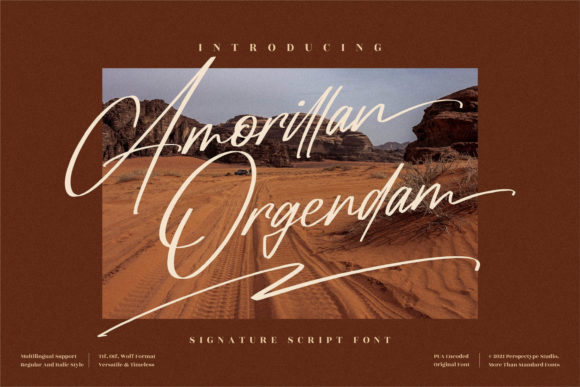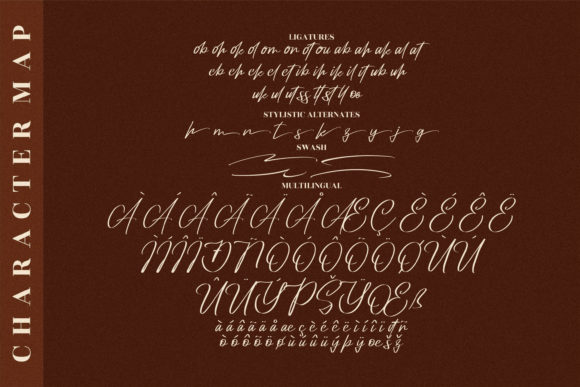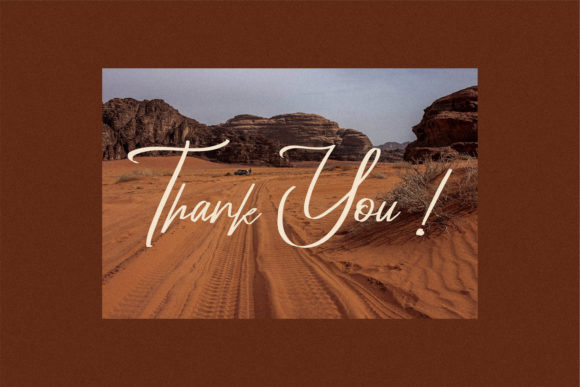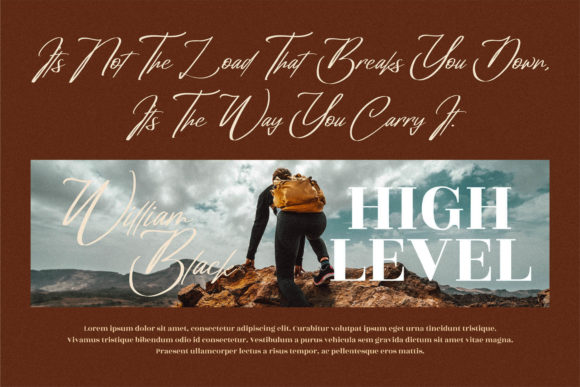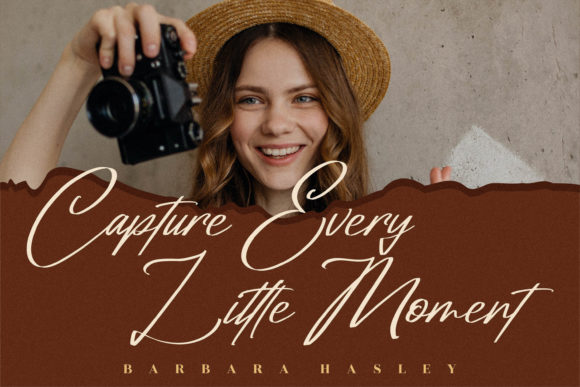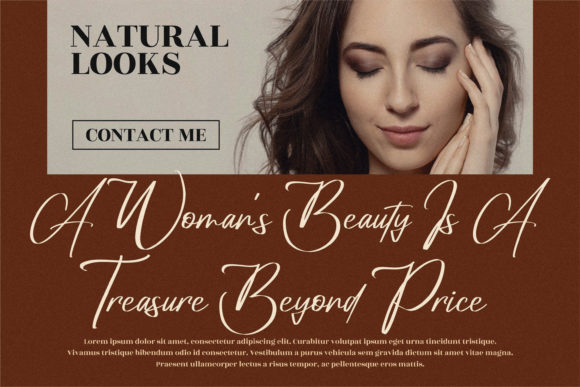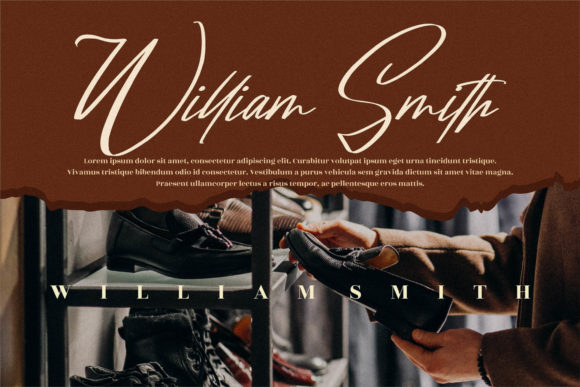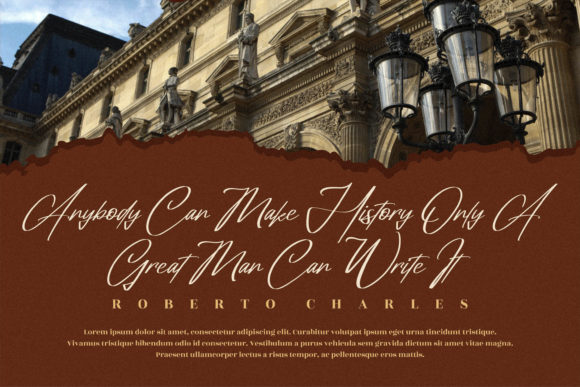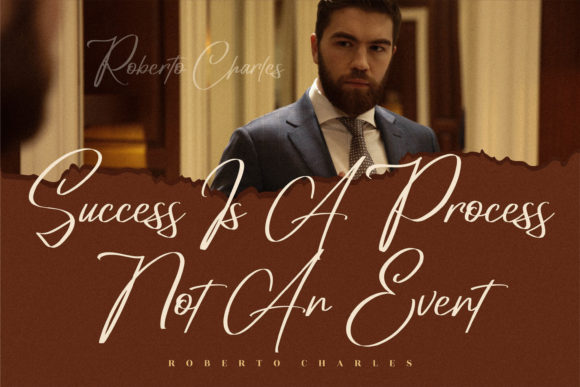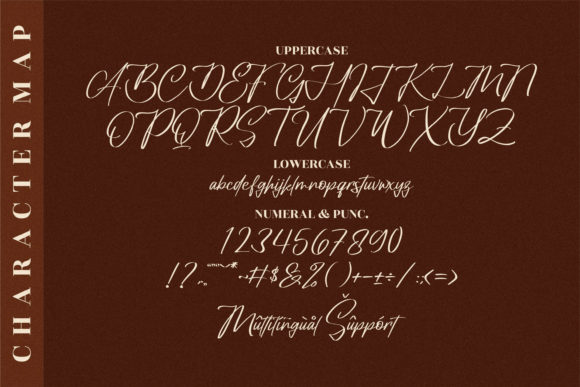
Amorillan Orgendam Font
About Amorillan Orgendam Font
This font is perfect for adding an elegant and fashionable touch to your designs. Its delicate and thin letterforms give it a graceful and sophisticated appearance. Whether you’re creating wedding invitations, branding materials, or any design that requires a touch of elegance, “Amorillan Orgendam” will help you achieve a beautiful and memorable result.
With its wide range of available glyphs and swashes, you can further customize and enhance your designs, adding flourishes, ligatures, and unique letter variations. This versatility allows you to create stunning and personalized typography that stands out.
Whether you’re designing for print or digital media, “Amorillan Orgendam” will bring a touch of beauty and sophistication to your projects. Its fashionable style and delicate lettering make it a perfect choice for a variety of design applications, such as logos, branding, stationery, and more.
In summary, “Amorillan Orgendam” is a thin lettered, delicate, and beautiful script font with PUA encoding for easy access to its glyphs and swashes. Its fashionable style and elegant appearance make it a versatile choice for various design projects. Embrace its grace and create spectacular designs that leave a lasting impression.